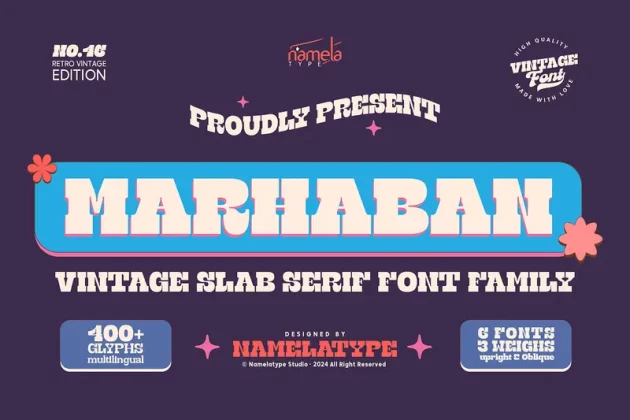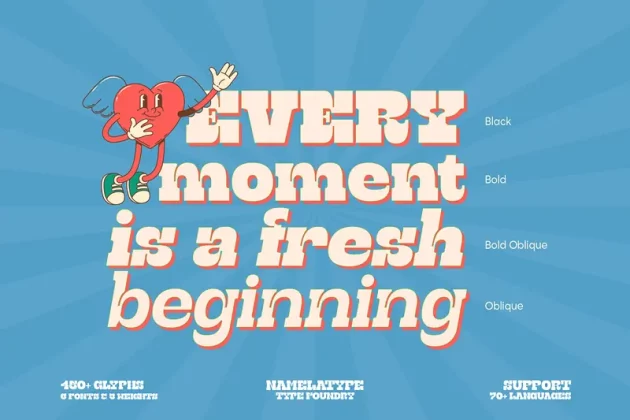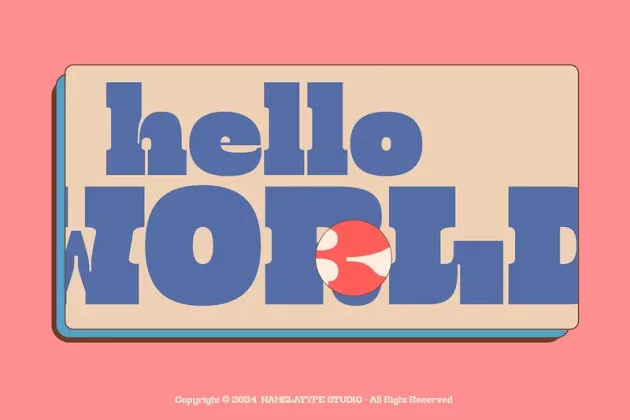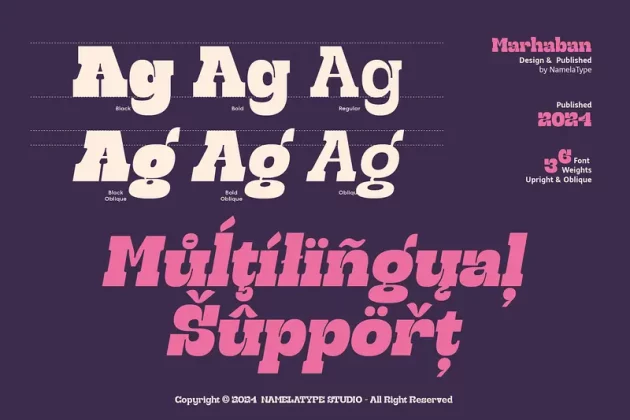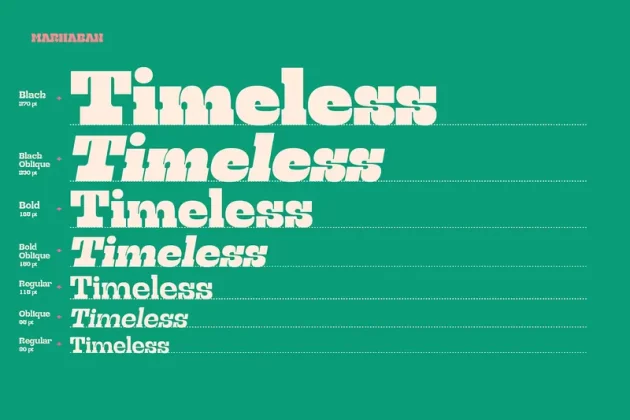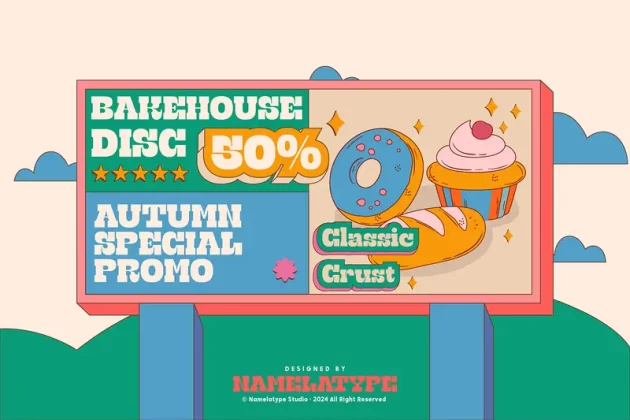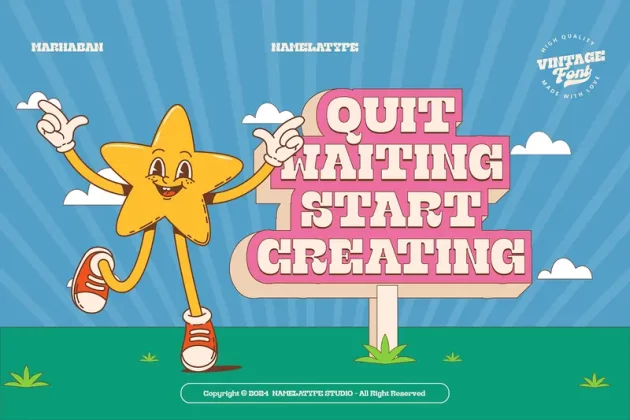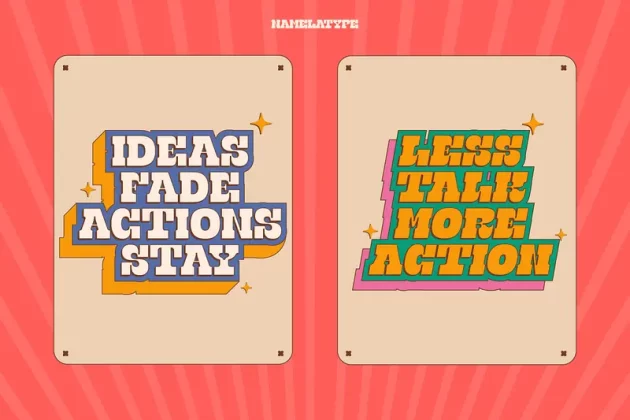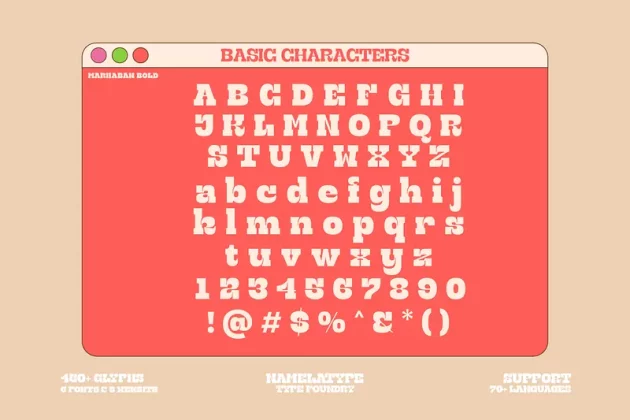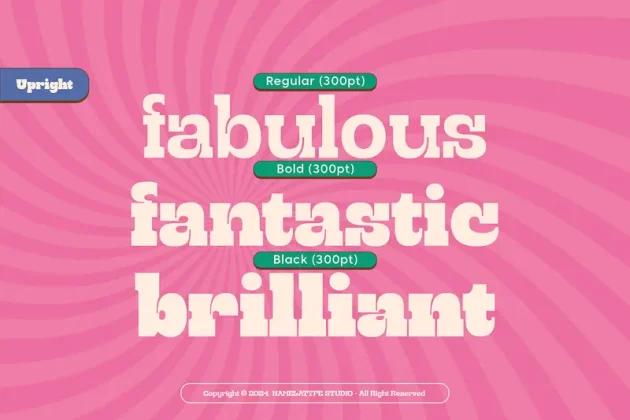
Marahaban Font
About Marahaban Font
Marhaban is a retro vintage slab serif font family brings nostalgic charm and bold character to any design. This font style combines the solid, thick serifs typical of slab fonts with retro-inspired details from past decades, often echoing 60s and 70s aesthetics. Its letters are usually well-defined, with strong lines and a touch of ruggedness or weathered texture, giving it a timeless, authentic feel.
Marhaban retro vintage slab serif font Ideal for branding, packaging, and editorial designs, a vintage slab serif font family adds a bold yet classic appeal, capturing a heritage-inspired style that stands out across print and digital formats.